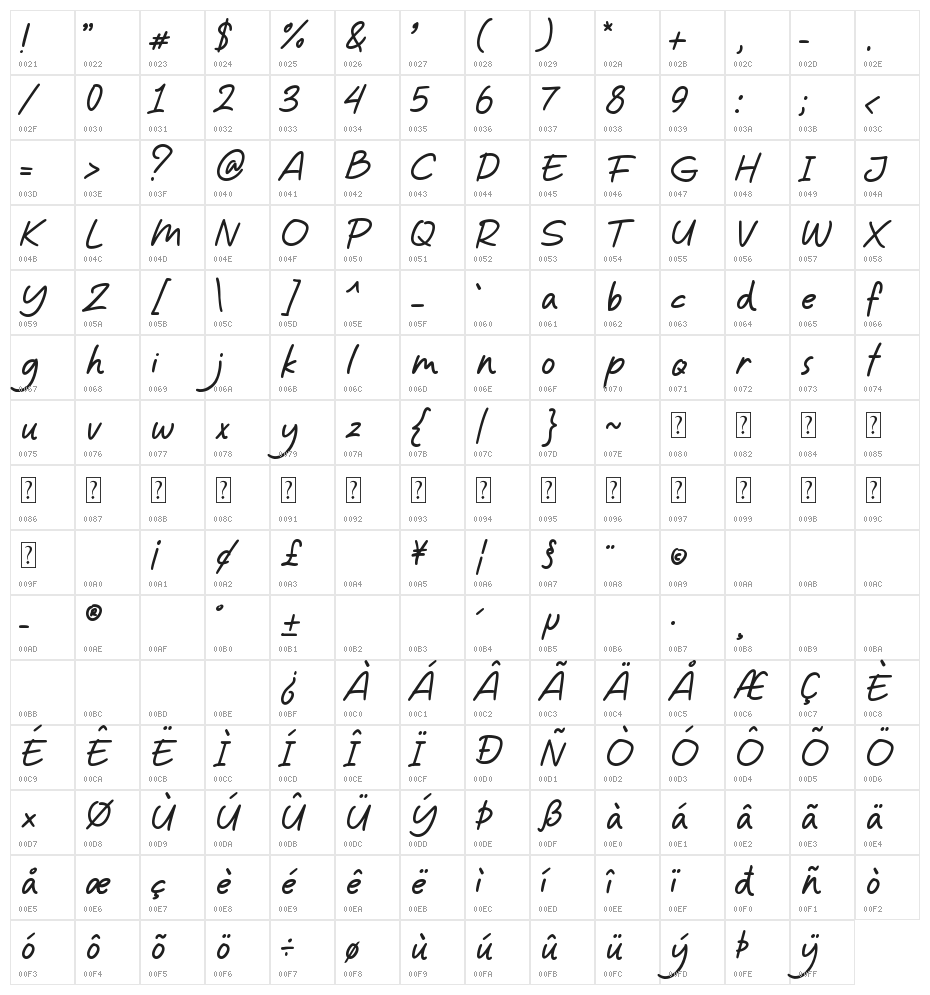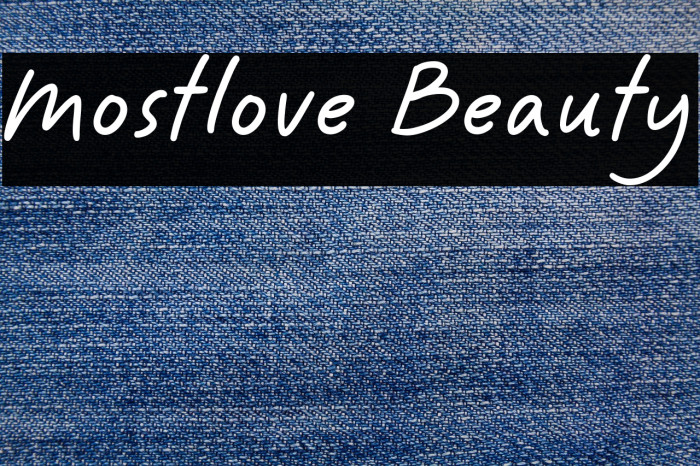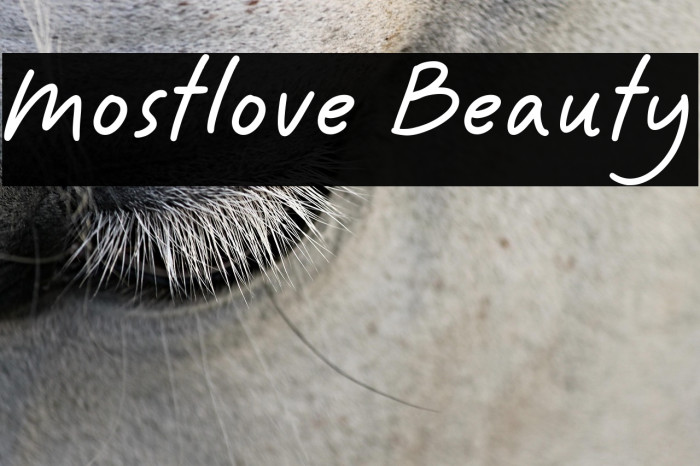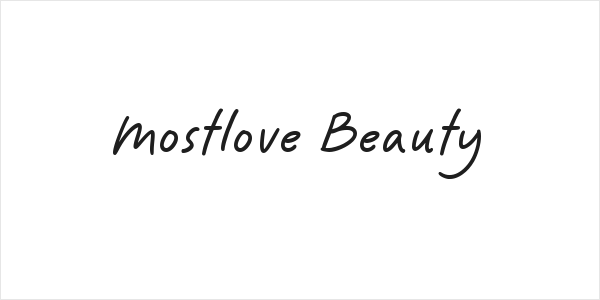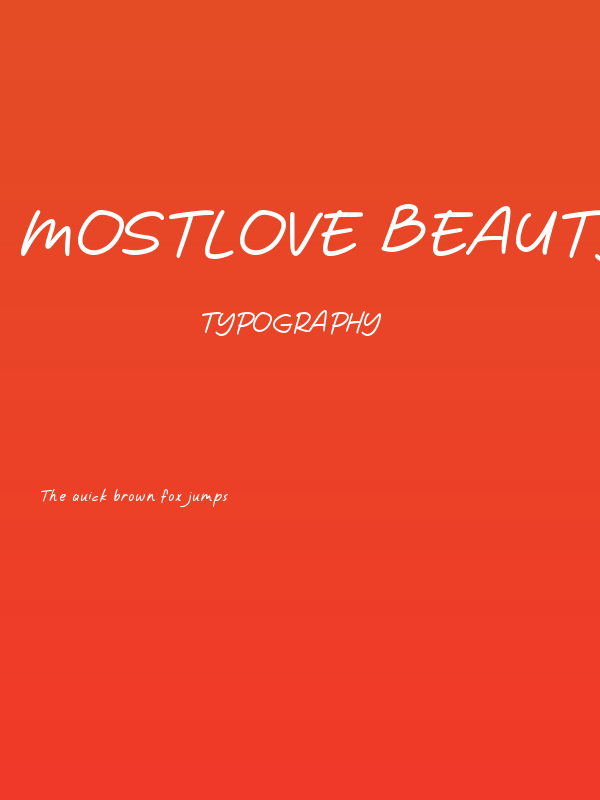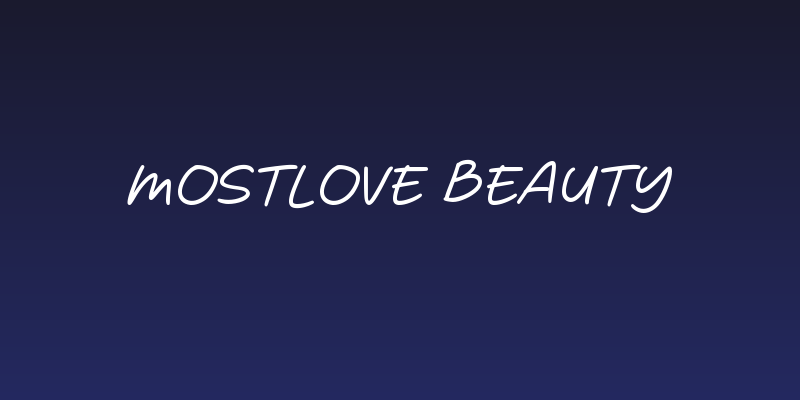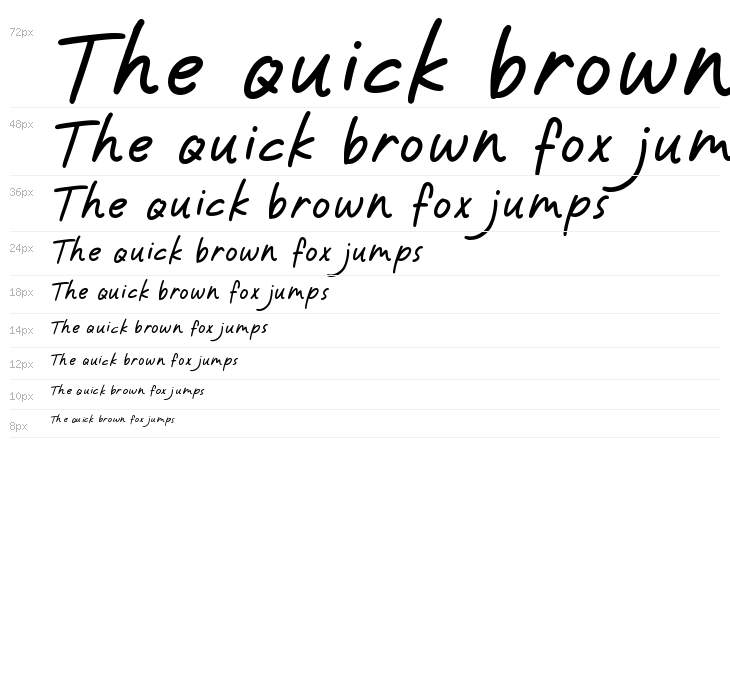
Mostlove Beauty Font
Mostlove Beauty Description
A casual, handwritten script font with a smooth, flowing style and slight slant.
| Overall Style | Casual, Handwritten |
| Use Case | Logos, Invitations, Personal notes |
| Proposed Projects | Greeting cards, invitations, personal branding. |